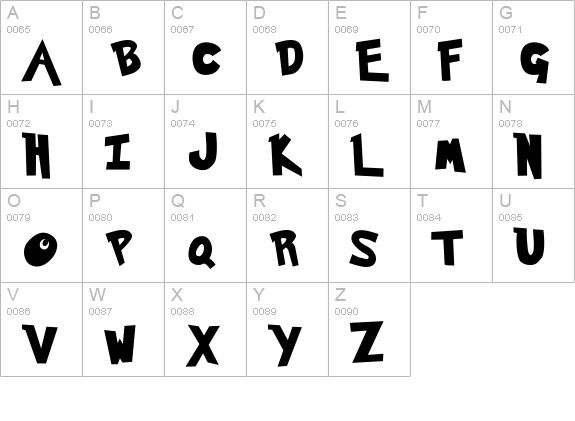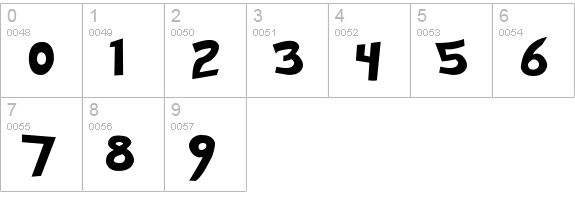
Pokemon Solid Normal Font Details
Pokemon Solid Normal is the standard, neutral variant in the Pokemon typeface family \xE2\x80\x94 well suited to general body text, paragraphs, and standard typographic work.
Pokemon Solid Normal font is a versatile and eye-catching typeface that is perfect for adding a touch of fun and playfulness to your designs. This font features solid, bold letters that make a bold statement, while still maintaining a clean and easy-to-read appearance. Whether you're creating posters, logos, or any other design project, Pokemon Solid Normal font is sure to make a strong impression. Best of all, this unique font is available for free download at FontsMarket.com, making it easily accessible to anyone looking to add a touch of creativity to their projects. So why wait? Download Pokemon Solid Normal font today and let your designs stand out with its distinctive style and charm.